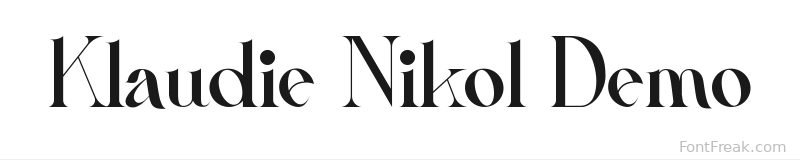
Klaudie Nikol Demo
Klaudie Nikol Demo, created by Noah Type, is a stunning serif font that exudes elegance and sophistication. This font features a unique combination of thin and thick strokes, creating a beautiful contrast that draws attention without overwhelming the viewer. The graceful curves and sharp details lend a sense of refinement, making it ideal for projects that require a touch of class. The spacing is well-balanced, ensuring legibility while maintaining its artistic flair.
This versatile typeface shines in various applications. It is perfect for wedding invitations, where its romantic aesthetic can enhance the overall design. Additionally, it works wonderfully on movie posters, adding a cinematic quality that captivates potential viewers. Restaurant menus can also benefit from the charm of Klaudie Nikol, providing an upscale feel that complements fine dining experiences. Furthermore, content creators looking to elevate their branding will find this font an excellent choice for logos and social media graphics.
Targeting graphic designers, small business owners, and content creators, Klaudie Nikol Demo is accessible as a freeware license, making it an attractive option for those seeking high-quality typography without financial constraints. This font is especially appealing for those who appreciate the artistry of type design and wish to incorporate a refined touch into their work.
What sets the Klaudie Nikol Demo font apart is its ability to blend modern sensibilities with classic elegance. Its distinctive character makes it memorable, while its versatility ensures it can adapt to a variety of projects. For anyone looking to elevate their designs, the Klaudie Nikol Demo font free download is an opportunity not to be missed. Embrace this beautiful typeface and let it enhance your creative endeavors.